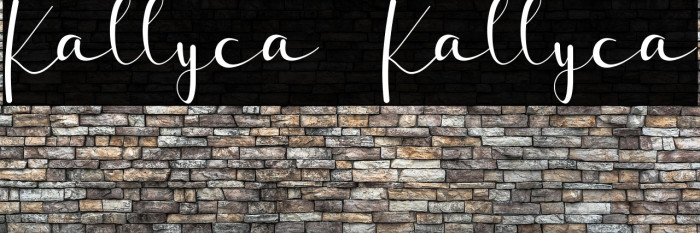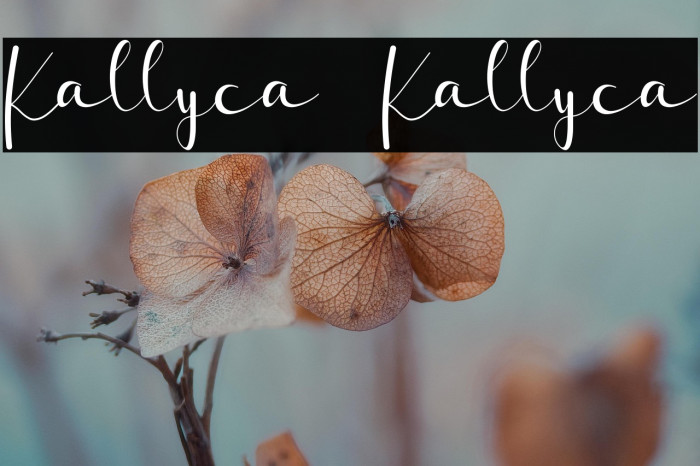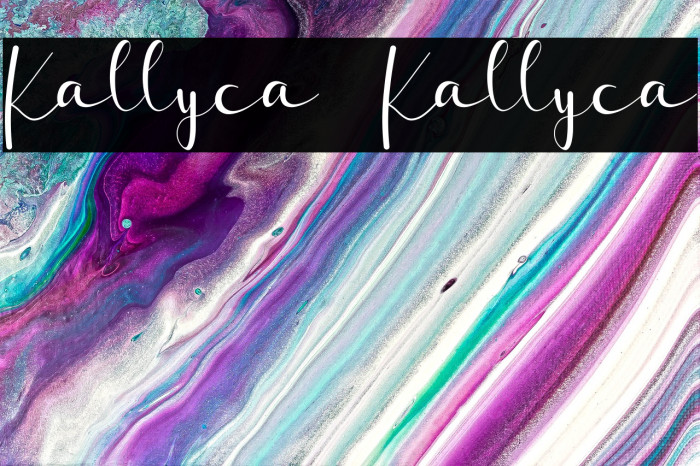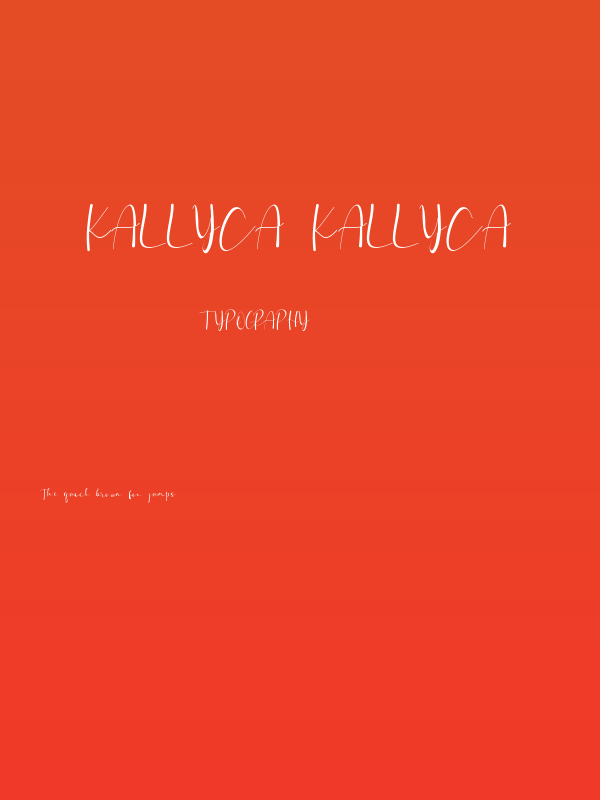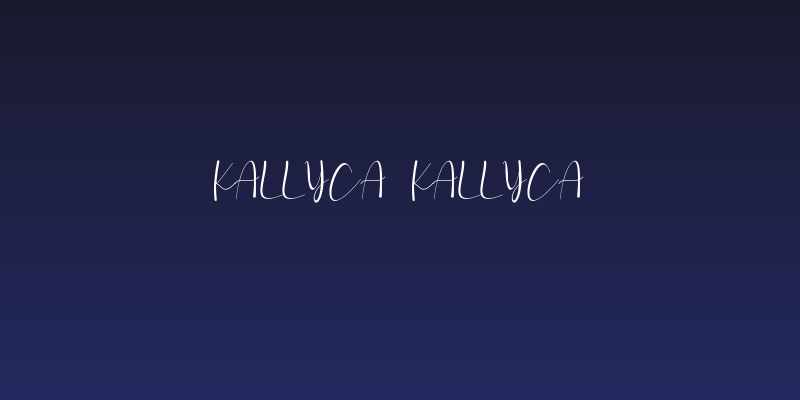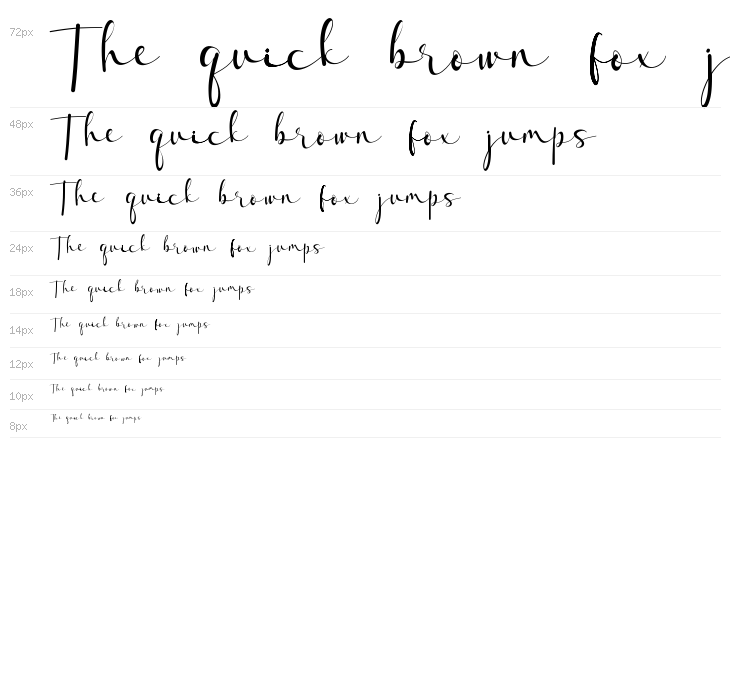
Kallyca Font
Kallyca Description
This font features an elegant and flowing script style, characterized by its graceful curves and fluid strokes. The uppercase letters are tall and slender, with a slight slant that adds a sense of movement and sophistication. The lowercase letters maintain a consistent style, with some characters featuring unique loops and swashes that enhance the overall aesthetic. The numerals are clear and legible, complementing the script style without detracting from its elegance. Special characters are thoughtfully designed, maintaining the font's cohesive look. This font is perfect for projects that require a touch of elegance and personality.